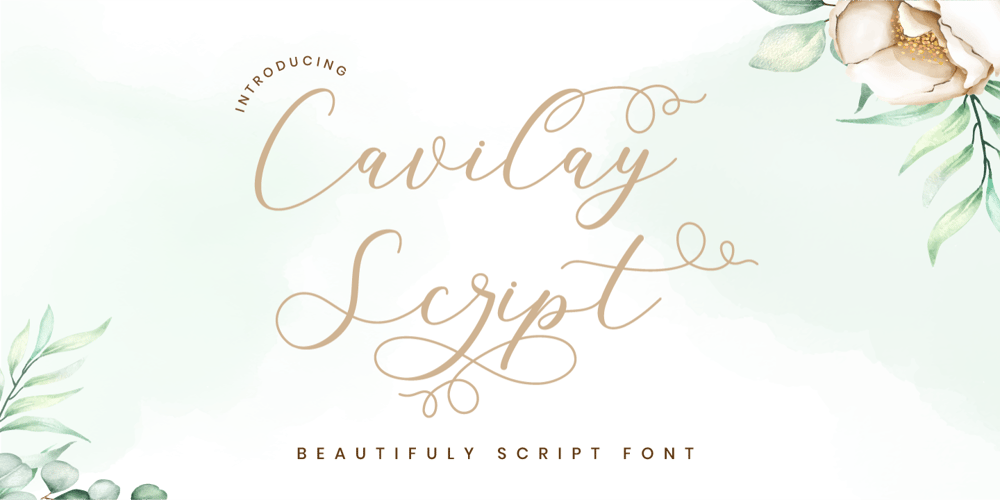
Cavilay Script Font Family was designed by Putra Novembria Candra Kusuma and published by Putracetol. Cavilay Script contains 1 styles and family package options. Cavilay Script is a beautiful script and wedding font. This font is feminime, elegant, messy and modern.Cavilay Script perfect for wedding event, anniversary, birthday,greeting cards, logotype, branding, wedding invite and card, elegant logo, poster, packaging, stationery, website, and any other projects requiring a handwritten and luxurious touch. Come with open type feature with a lot of alternates, its help you to make great lettering.This font is also support multi language.